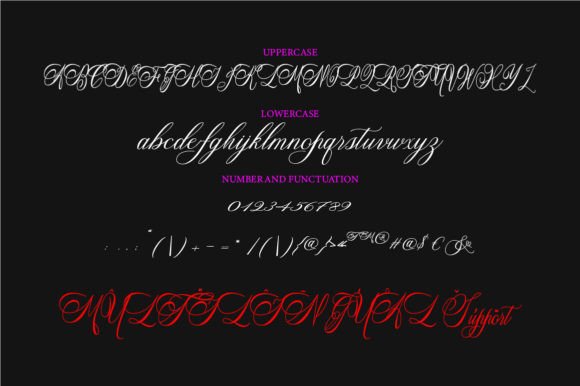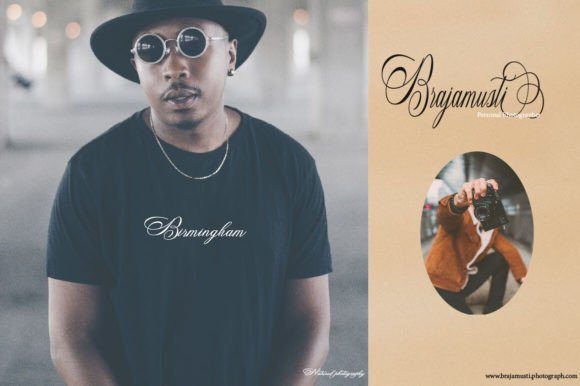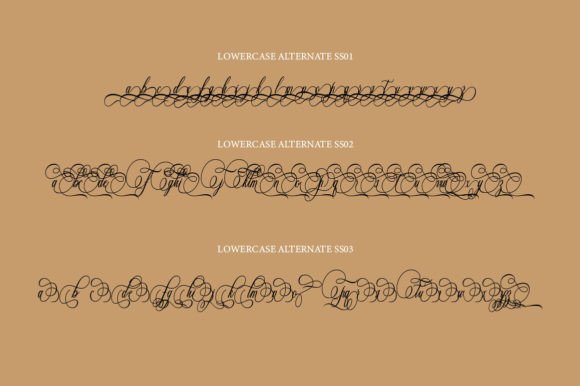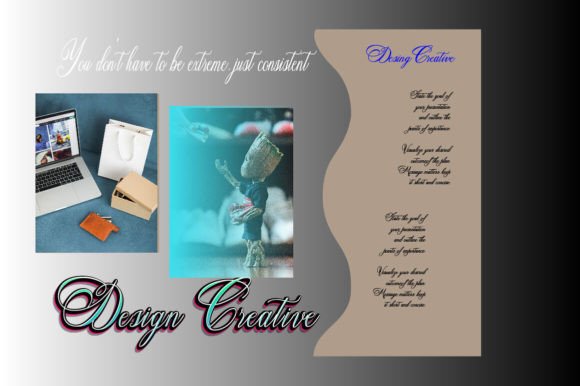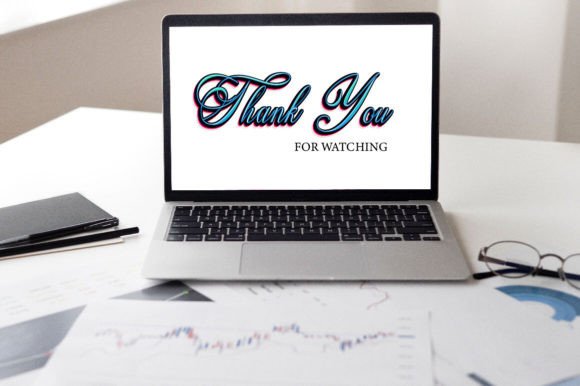
Cantik Font: Elevate Your Designs with Elegance and Sophistication
Are you tired of using the same old fonts in your designs? Look no further than Cantik, an exquisite handwritten font that is sure to become your new favorite. With its classy calligraphic influences and contemporary feel, Cantik is the perfect choice for designers and crafters looking to add a touch of elegance and sophistication to their projects.
The Story Behind Cantik Font
Cantik is a masterfully designed font that combines traditional calligraphic techniques with modern sensibilities. The result is a font that feels both timeless and fresh, perfect for a wide range of design applications. Whether you’re working on a branding project, a wedding invitation, or a craft project, Cantik is sure to make a lasting impression.
What Makes Cantik Font So Special?
So, what sets Cantik apart from other fonts? Here are just a few of the features that make it so special:
- Classy Calligraphic Influences: Cantik’s roots in traditional calligraphy give it a level of sophistication and elegance that is hard to find in other fonts.
- Contemporary Feel: Despite its classic influences, Cantik feels fresh and modern, making it perfect for designers who want to create something new and exciting.
- Versatility: Cantik is a highly versatile font that can be used in a wide range of design applications, from branding and advertising to crafting and DIY projects.
- Easy to Read: Cantik is a highly legible font, making it perfect for use in both digital and print applications.
How to Use Cantik Font in Your Designs
Ready to fall in love with Cantik and bring your projects to the highest levels? Here are a few tips for incorporating Cantik into your designs:
- Pair it with Other Fonts: Cantik pairs beautifully with other fonts, so don’t be afraid to get creative and experiment with different combinations.
- Use it for Headlines and Titles: Cantik’s elegant, cursive script makes it perfect for use in headlines and titles.
- Add it to Your Branding: If you’re looking to add a touch of sophistication to your brand, Cantik is a great choice.
- Use it in Your Craft Projects: Cantik is perfect for crafters who want to add a personal touch to their projects.
Cantik Font: The Perfect Choice for Designers and Crafters
Whether you’re a professional designer or a crafty DIY enthusiast, Cantik is the perfect choice for anyone looking to add a touch of elegance and sophistication to their projects. With its classy calligraphic influences, contemporary feel, and versatility, Cantik is sure to become a favorite in your design arsenal.
So why wait? Fall in love with Cantik and bring your projects to the highest levels. With Cantik, you can:
- Create stunning branding and advertising materials
- Design beautiful wedding invitations and stationery
- Add a personal touch to your craft projects
- Elevate your digital and print designs
In conclusion, Cantik is an exquisite handwritten font that is sure to become a favorite among designers and crafters. With its classy calligraphic influences, contemporary feel, and versatility, Cantik is the perfect choice for anyone looking to add a touch of elegance and sophistication to their projects. So why wait? Try Cantik today and see the difference it can make!